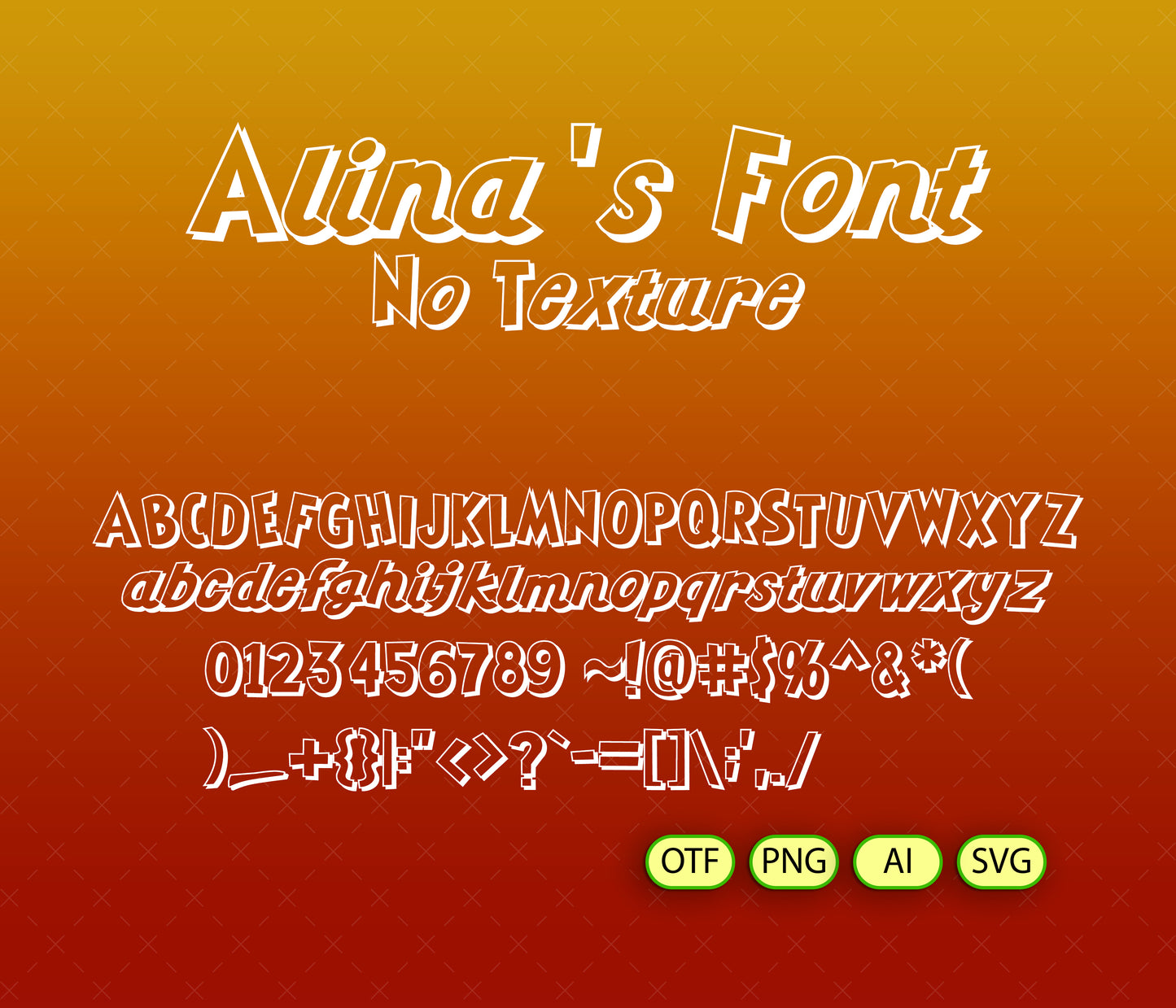
Mischief Mayhem Playful Font
Mischief Mayhem Playful Rivalry Style
Enter the uproarious realm of endless pranks and comedic competition with our Mischief Mayhem font, embodying the spirit of classic cartoon chaos and animated hijinks. Designed for vintage animation lovers, comedy enthusiasts, retro content creators, and artistic professionals, this font channels the bouncing, zany essence of timeless rivalry adventures into your creative work. Craft hilarious announcements, nostalgic entertainment products, or multimedia content with the frantically funny, competitive atmosphere of animated mischief narratives.
Our Mischief Mayhem font showcases springy, animated flourishes and comedically energetic letterforms capturing the magnificently chaotic yet amusing spirit of classic cartoon antics. Perfect for: